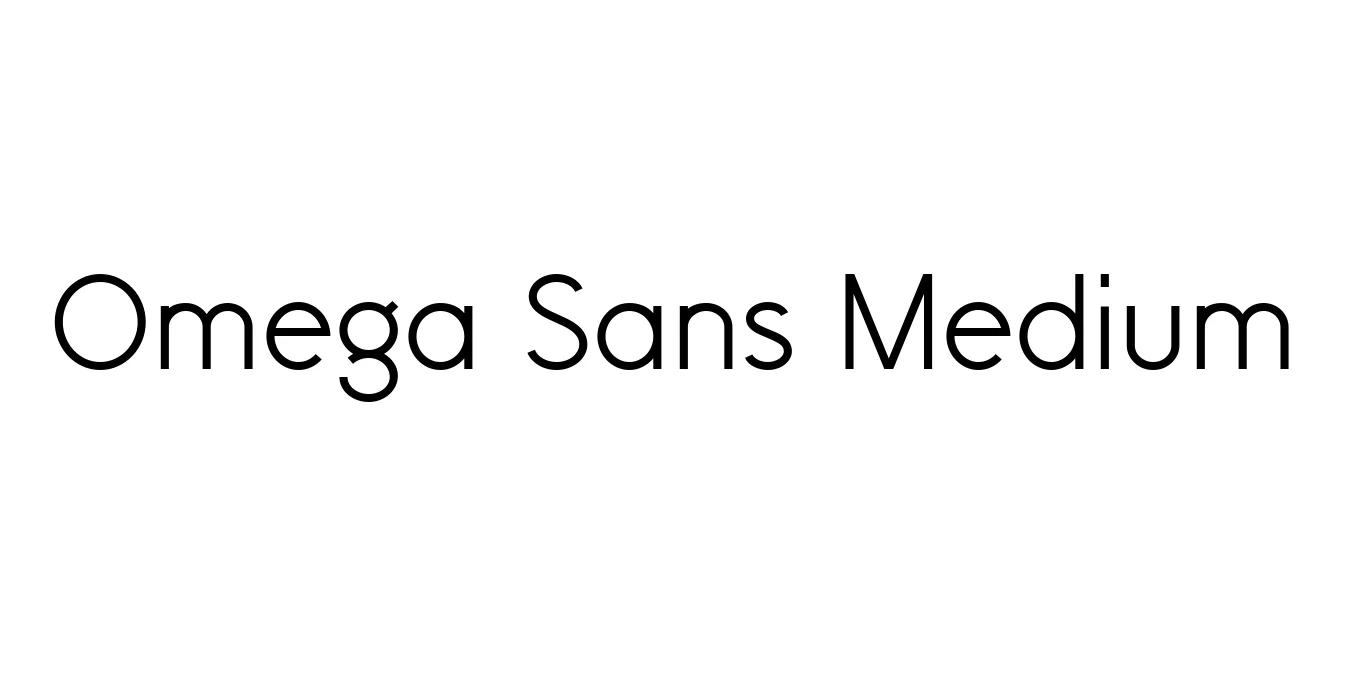
Omega Sans Medium
Designed by Anthony James
Omega Sans Medium is a sophisticated geometric sans-serif typeface that exemplifies modern minimalism. Created by the renowned designer Anthony James, this font family was developed to provide a clean and high-end aesthetic that bridges the gap between classic typography and futuristic design trends. Its precise construction and balanced proportions make it a standout choice for designers seeking to convey a sense of elegance, efficiency, and contemporary style.
The Medium weight specifically offers a versatile density that maintains excellent legibility across both digital displays and high-resolution print materials. Over the years, Omega Sans has become a staple in the creative industry for its ability to adapt to various contexts, from corporate identity systems to editorial layouts. Its timeless appeal and neutral yet distinct personality ensure that it remains a powerful tool for professional visual communication.
Omega Sans Medium Best Uses
Ideal for creating sophisticated and memorable logo identities and corporate assets.
Perfect for high-impact headers and clean navigation menus in modern layouts.
Excellent for magazine headings and body text that requires a contemporary feel.
Highly legible for user interfaces and clear communication on mobile screens.